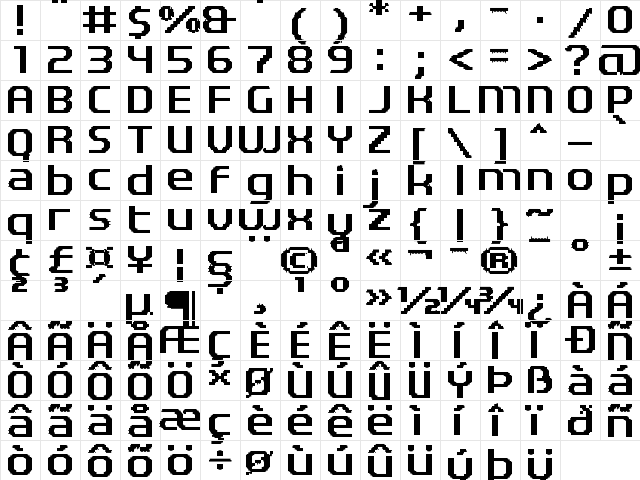
UF Elementar Basica 13.21.4 a Regular
| Foundry | Ultrafonts |
| Designer | Gustavo Ferreira |
Design Context for UF Elementar Basica 13.21.4 a Typeface
UF Elementar Basica 13.21.4 a is a composed and adaptable typeface that performs quietly and consistently across a wide range of design contexts.